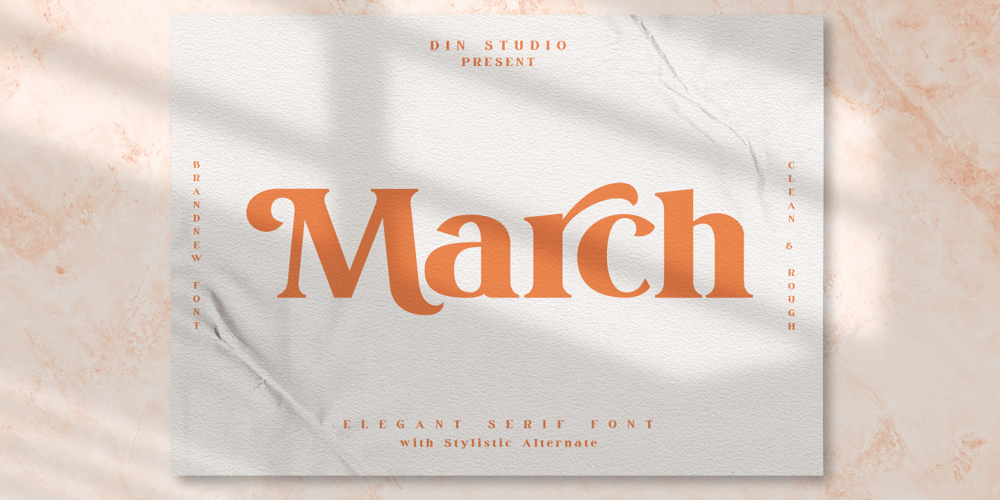
March Font Family was designed by Donis Miftahudin and published by Din Studio. March contains 2 styles and family package options. March is a modern and clean display (Serif) font create from our talented font designer. The design of March will make your design more beautiful and inspiring. This font will suitable for any project, like branding, print template, logo and etc. The font also available in a rough version.Features: Accents (Multilingual characters) 66 Alternates PUA encoded Numerals and Punctuation (OpenType Standard) Thanks for visiting and purchasing my font!Donis MDin Studio